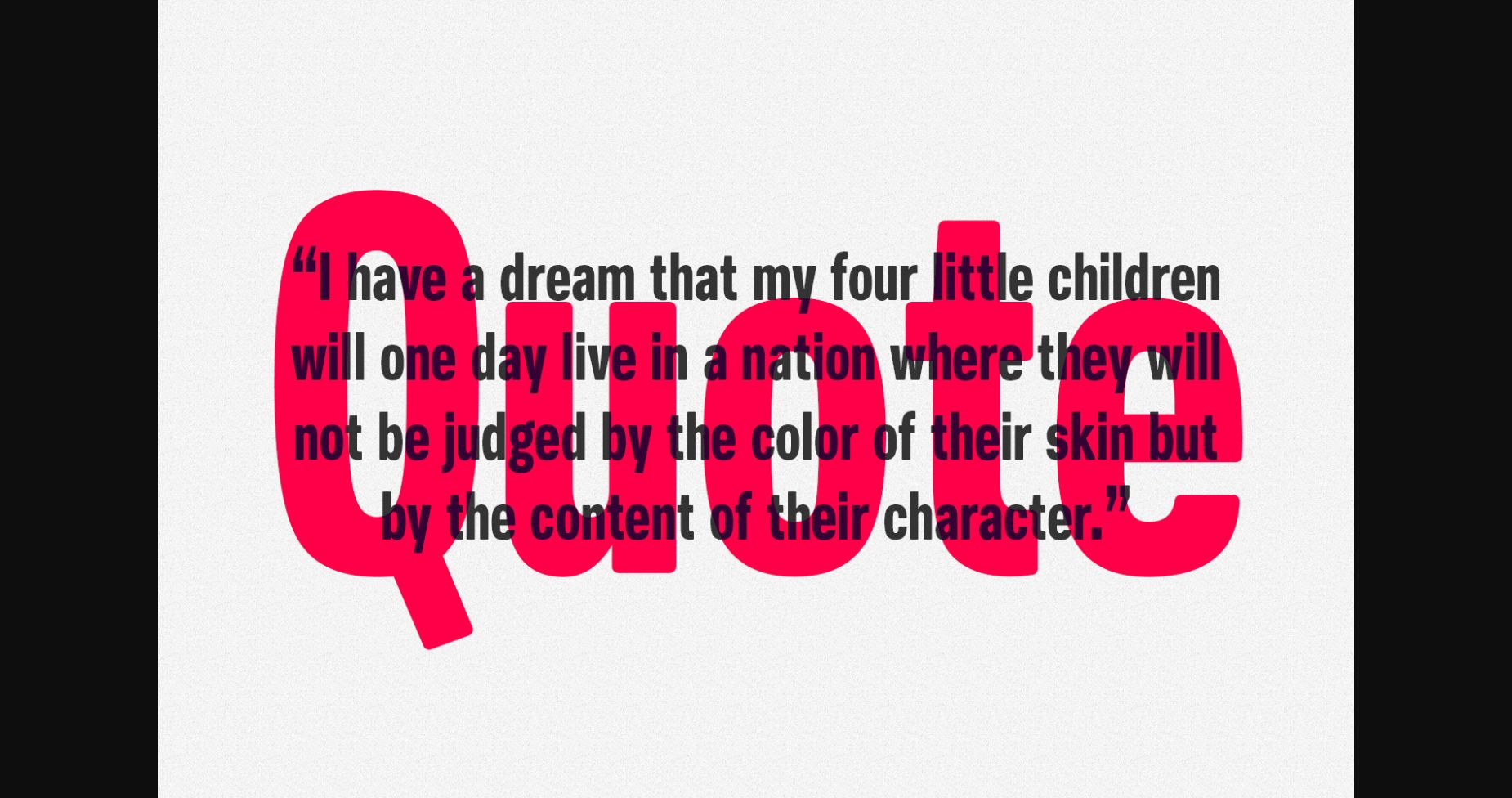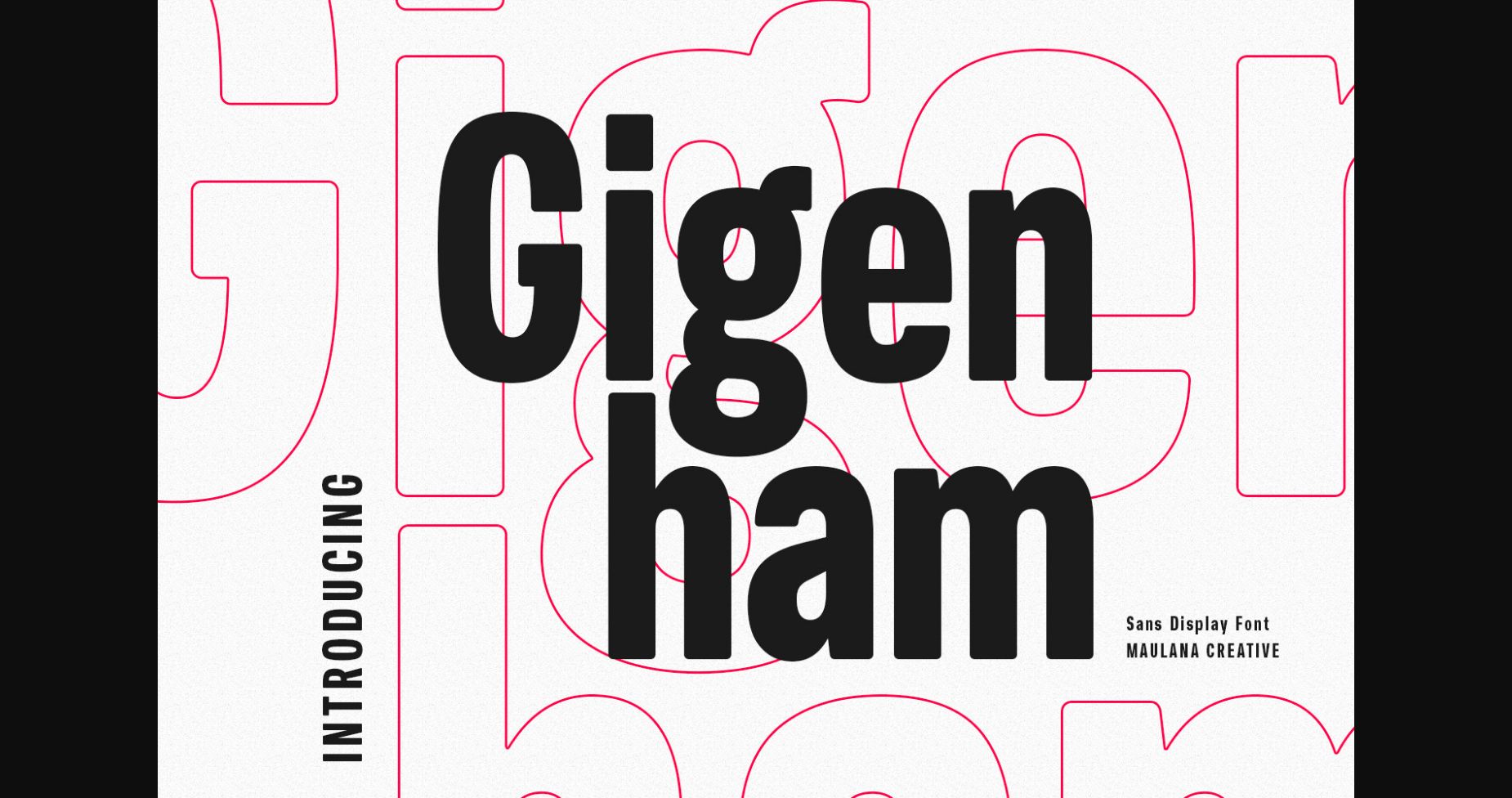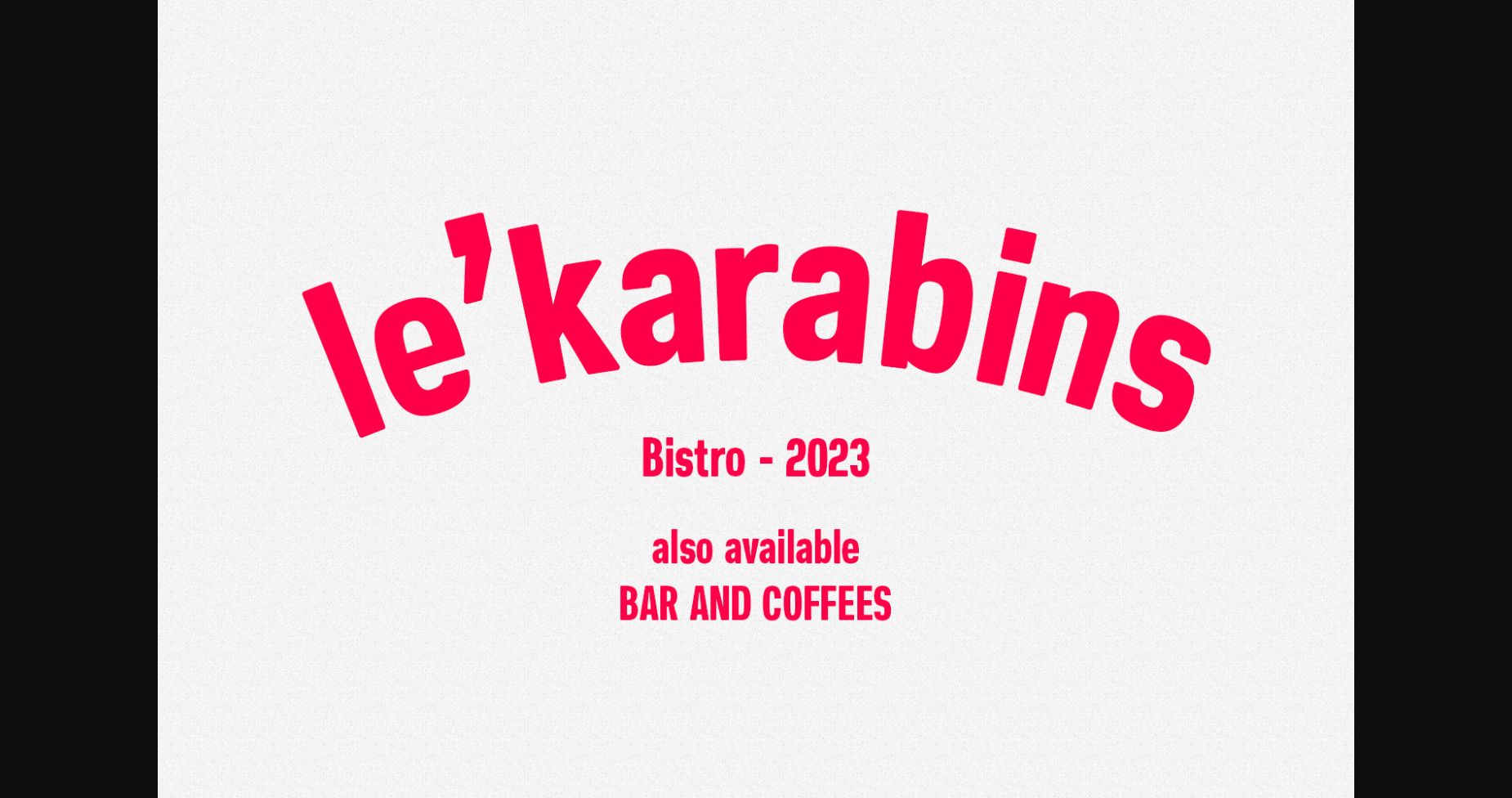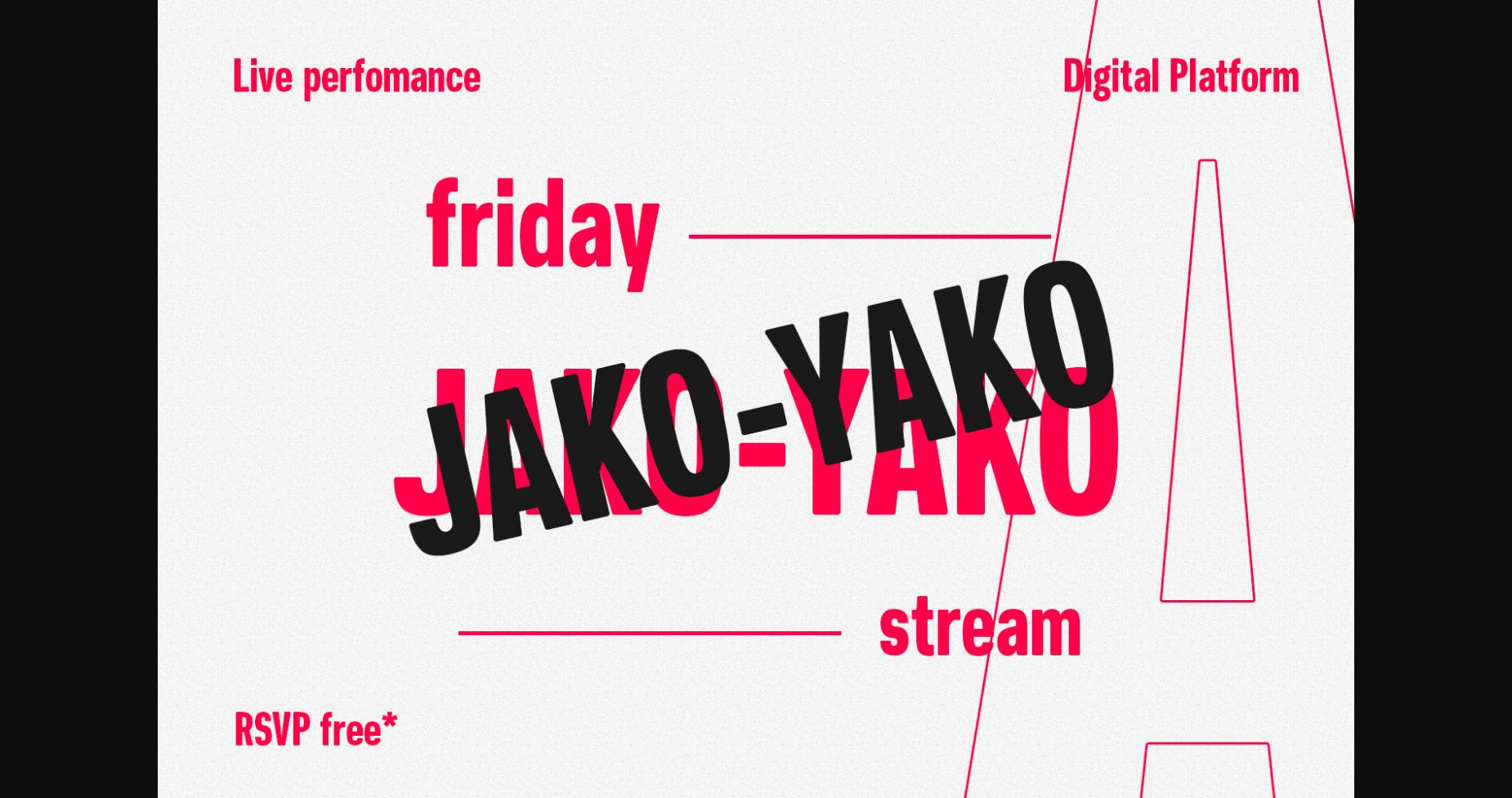
About Gigenham Font
Gigenham is a retro-inspired condensed sans serif font that adds a touch of old-school cool to any project. With its clean lines and geometric shapes, it is perfect for modern designs with a vintage vibe. Its bold and compact form makes it ideal for headings and titles, while its simple and legible style ensures readability in any context.